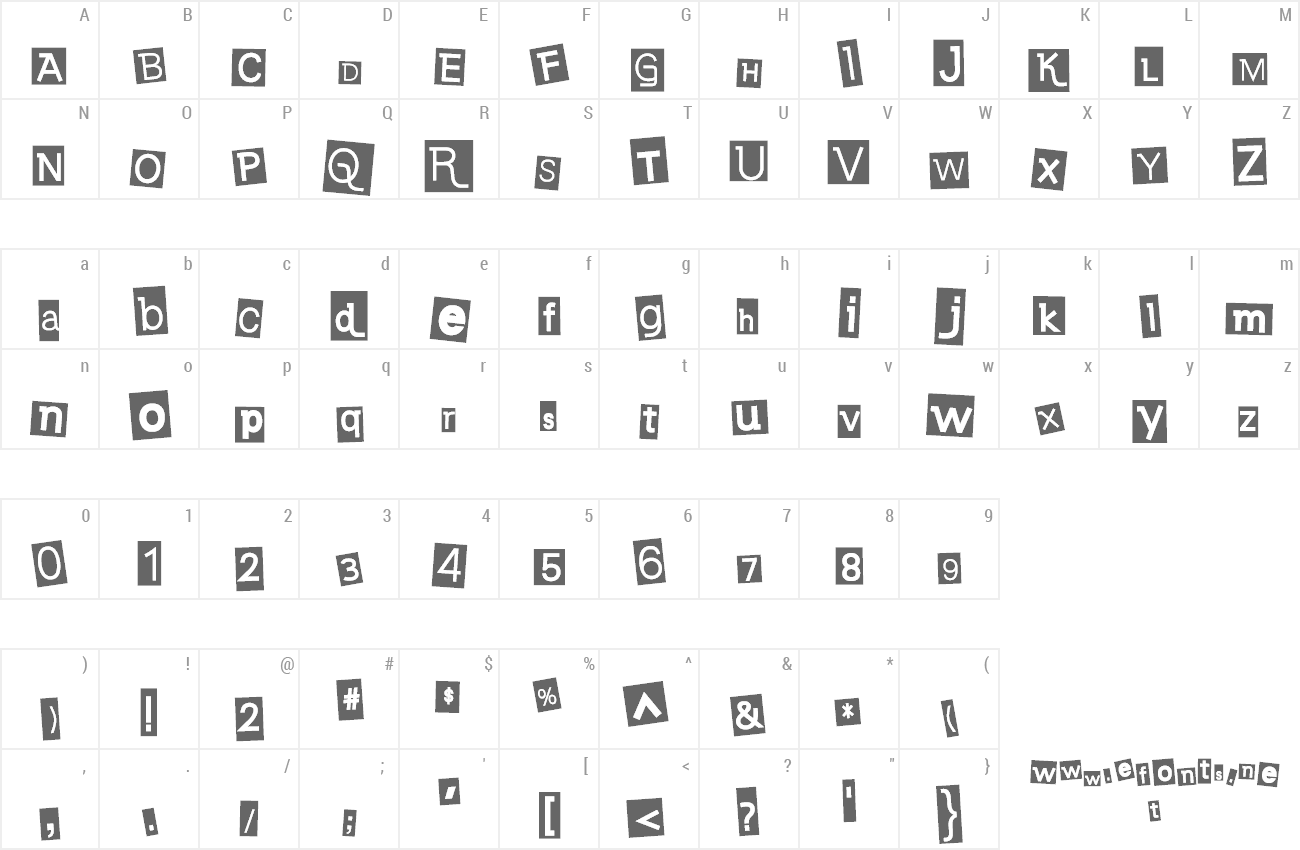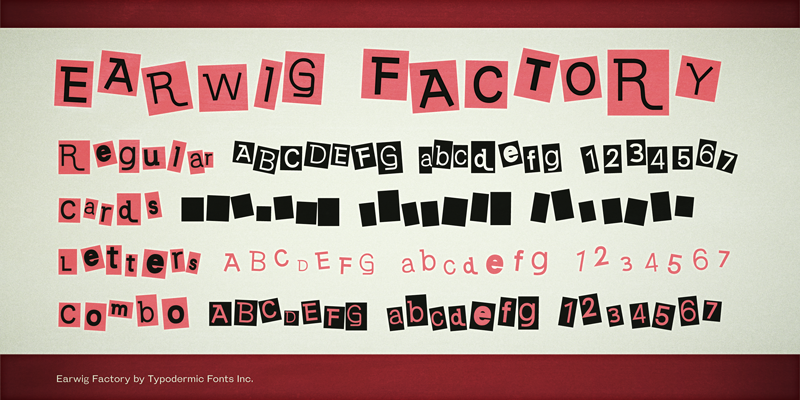
Earwig Factory is a jumbled alphabet mounted on weird little cards. This new version has more language coverage, more crazy-ass math symbols and the beloved new Indian rupee symbol. Also new: a pseudorandomized jumble effect in OpenType savvy applications to reduce the occurrence of identical letters. If you ever need to use Earwig Factory on something other that a white background, you now have the option of purchasing separate layers. The letters layer is even interesting on its own, without the background cards. This font includes a license that allows free commercial use: sometimes referred to as a desktop license. This allows you to install the font on a computer and use it to create posters, web graphics, game graphics, t-shirts, videos, signs, logos and more. Read the license agreement for details. If you'd like to embed this font in an app, ebook, on the web or anything that's not covered by the desktop license agreement, visit the link below. You'll find distributors who offer different types of licenses or you can contact me for help. http://typodermicfonts.com/earwig-factory-outlet/ This free font is part of a larger font family. Check out the rest of the family through the link above. |